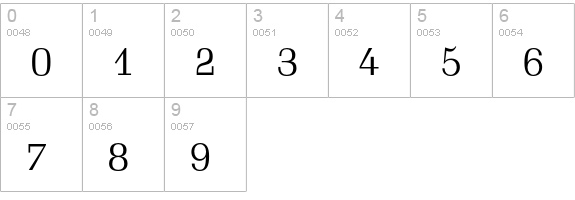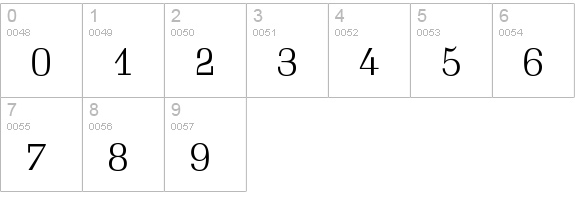
Schadow Light Font Details
Schadow Light is a refined, elegant variant in the Schadow typeface family \xE2\x80\x94 well suited to elegant body text, refined sub-headings, and luxury branding.
Schadow Light font is an exquisite typeface that exudes elegance and sophistication. With its delicate and refined lines, this font is perfect for adding a touch of class to any design project. Whether you're creating invitations, logos, or branding materials, Schadow Light font will effortlessly elevate your work to new heights. This font features a harmonious balance between thick and thin strokes, giving it a graceful appearance that is pleasing to the eye. The tall letterforms and generous spacing create a sense of openness and clarity, making it highly legible even at smaller sizes. One of the standout features of Schadow Light font is its versatility. It effortlessly adapts to a wide range of design styles, from modern and minimalist to classic and traditional. This versatility makes it an excellent choice for a variety of projects, ensuring that it will always be a valuable addition to your font collection. And the best part? Schadow Light font is freely available to download at FontsMarket.com. That's right, you can get your hands on this stunning font without spending a dime. We believe that great design should be accessible to everyone, and that's why we offer this font for free. So, why wait? Head over to FontsMarket.com and start exploring the endless possibilities that Schadow Light font has to offer.